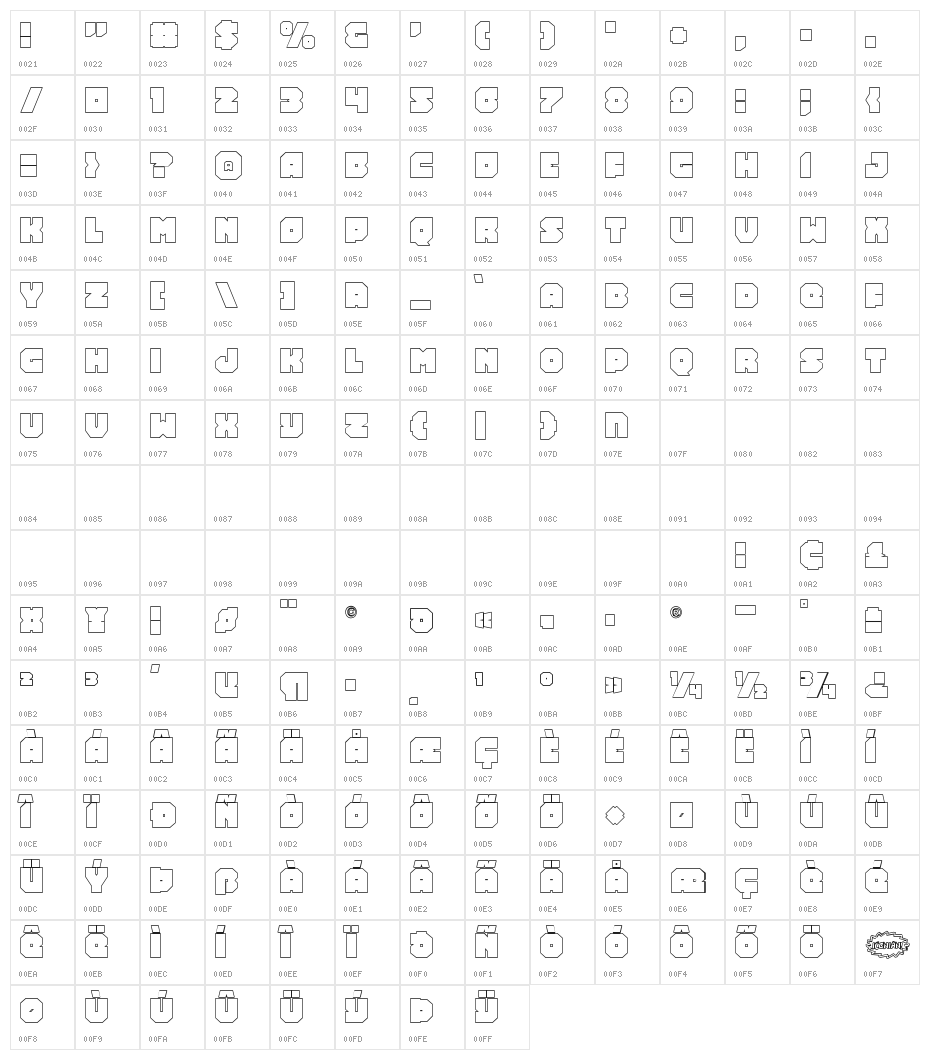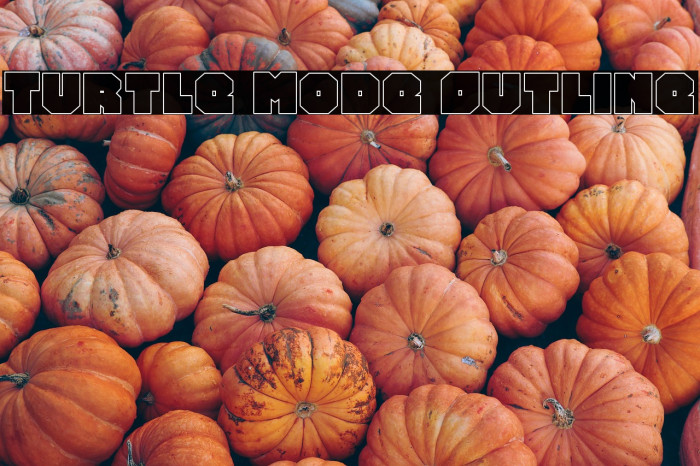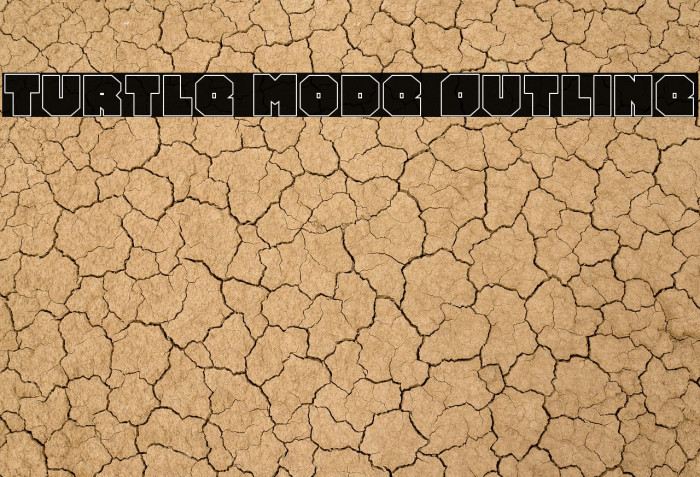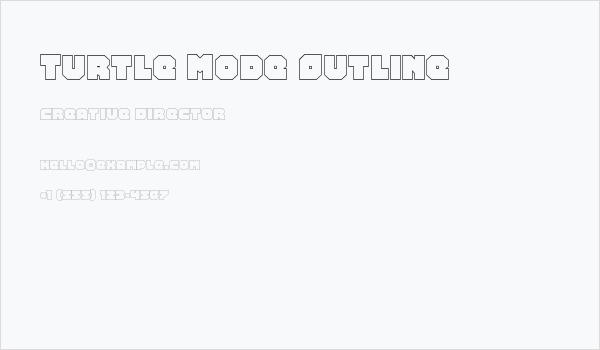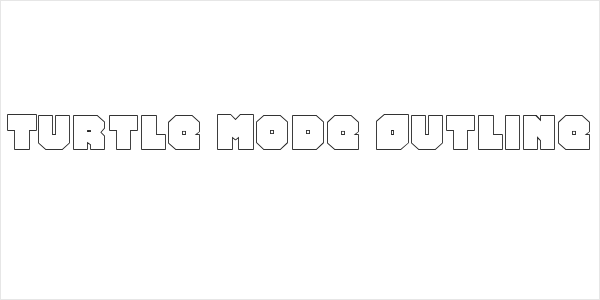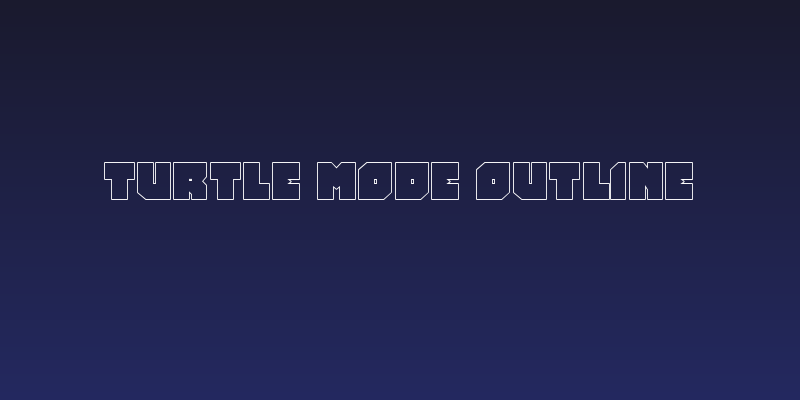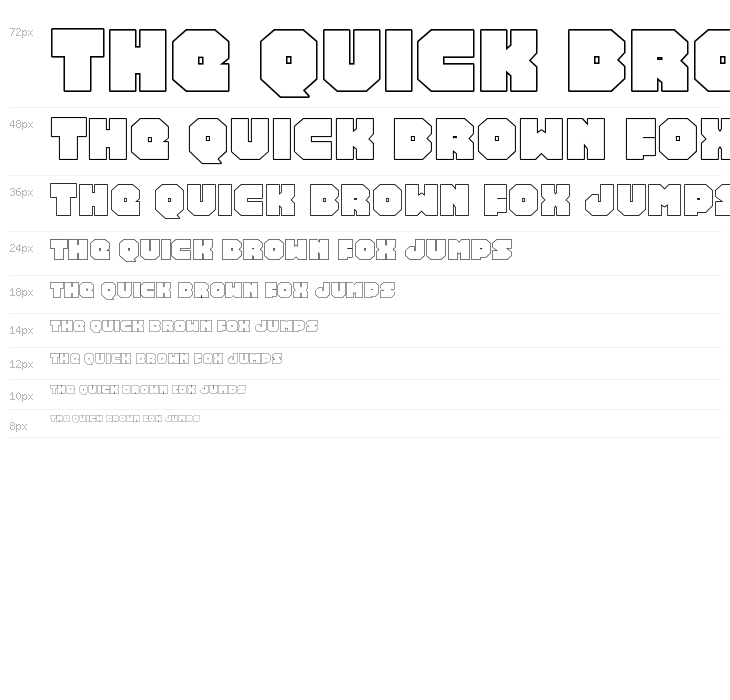
Turtle Mode Outline Font
Turtle Mode Outline Description
This font features a bold, geometric outline style with a blocky and angular appearance. The characters are constructed with sharp edges and straight lines, giving it a futuristic and digital look. The uppercase and lowercase letters maintain a consistent height, while the numbers and special characters follow the same design principles. The outline effect adds a sense of depth and dimension, making it stand out in any design. This font is ideal for projects that require a modern and edgy aesthetic, such as tech-related branding, video game titles, or sci-fi themed posters.
| Proposed Projects | Tech branding, video game titles, sci-fi posters, digital art. |